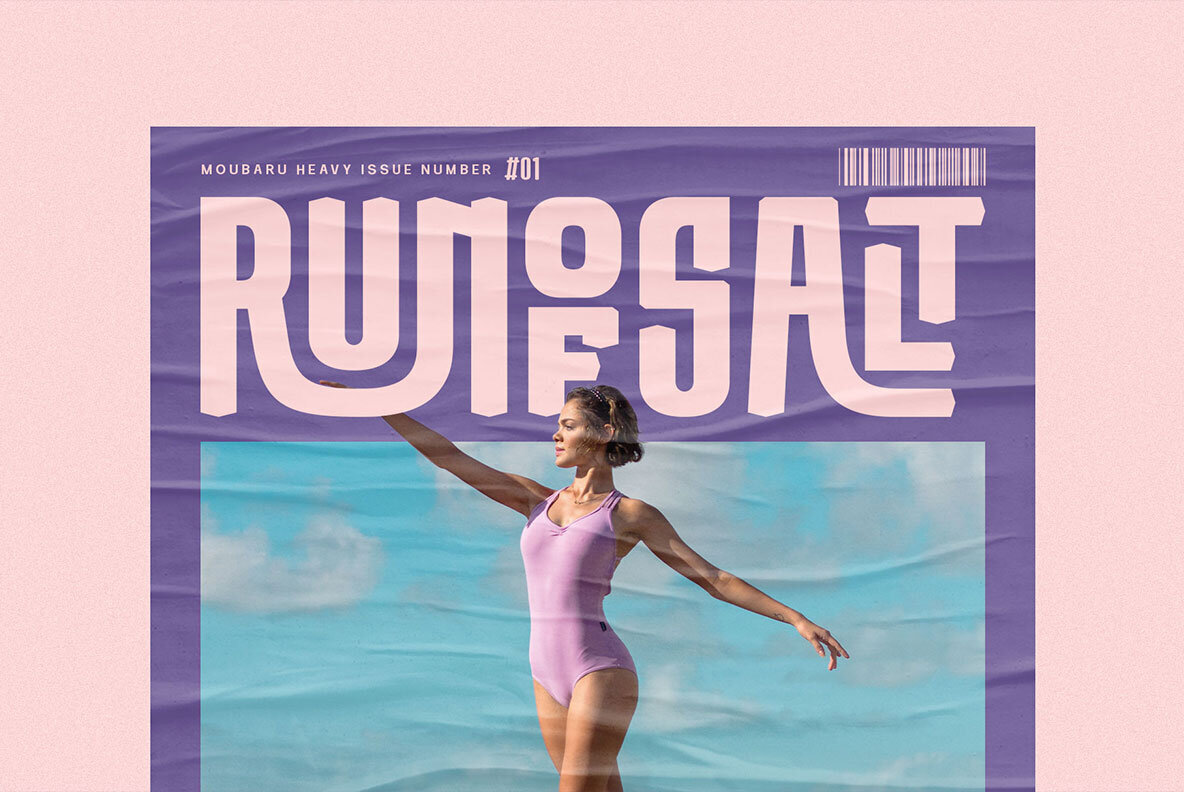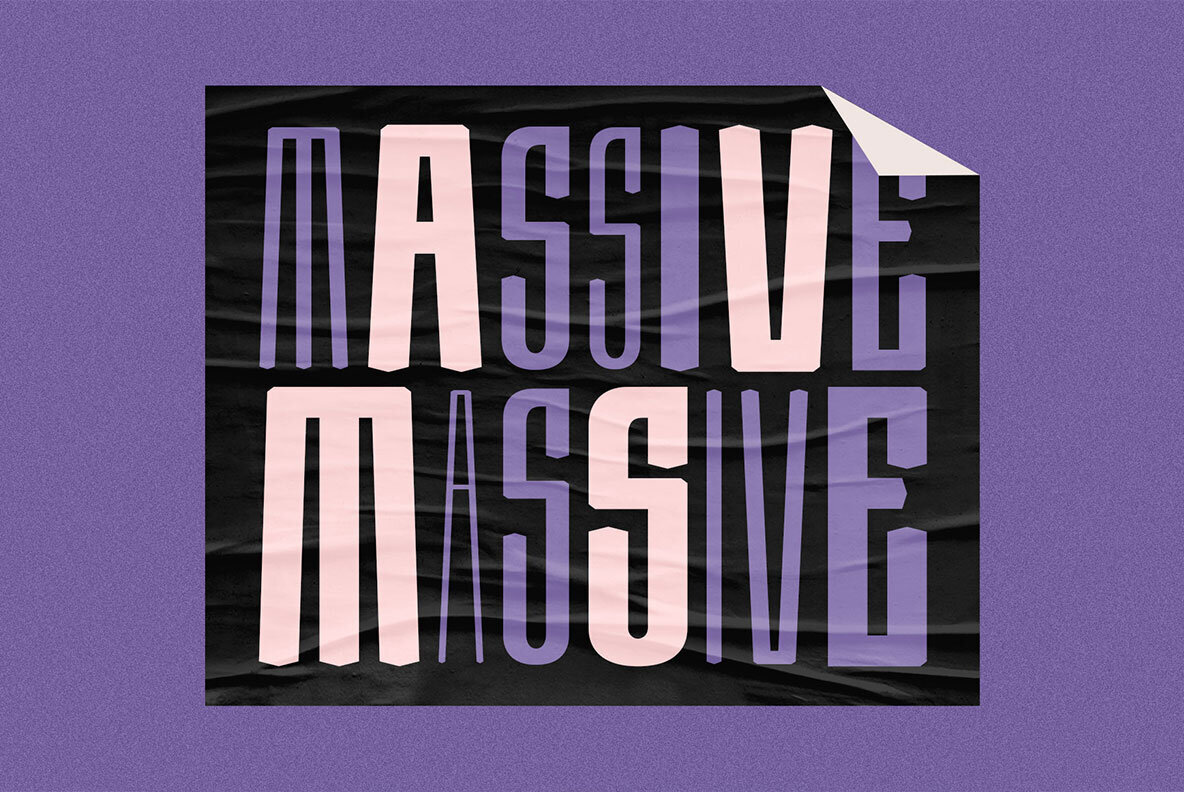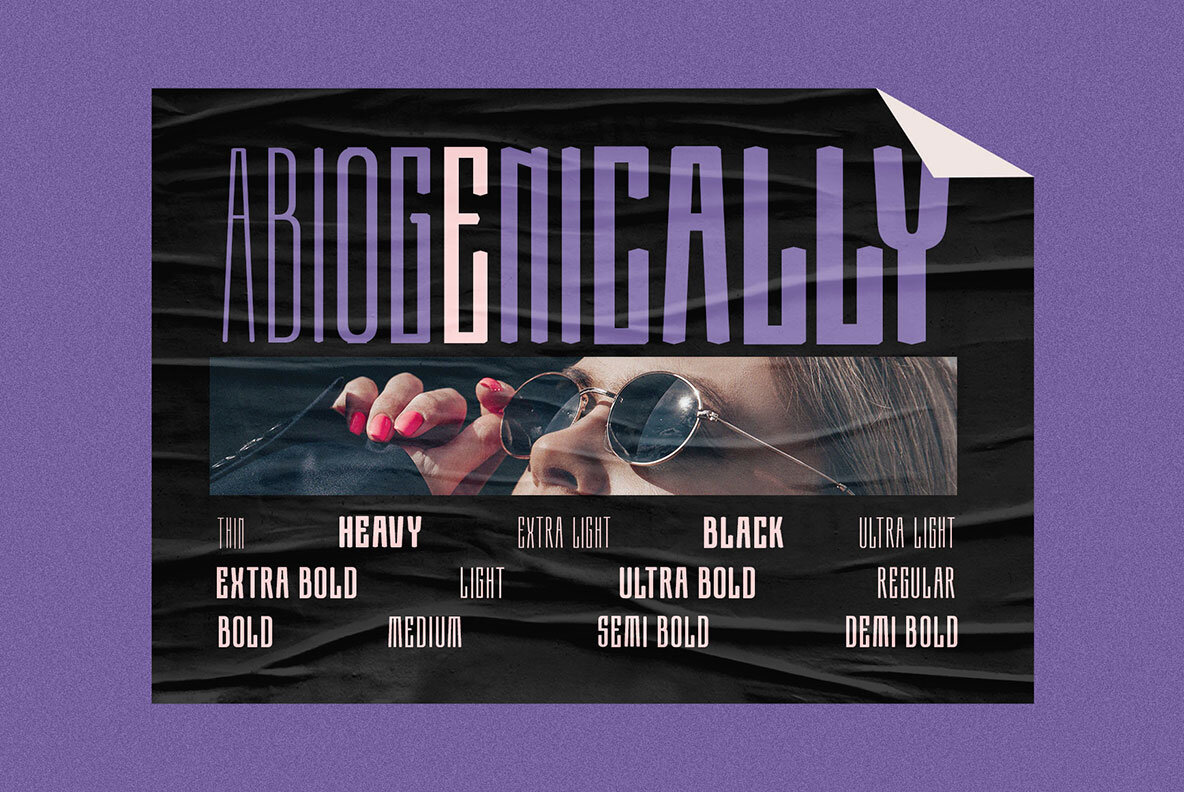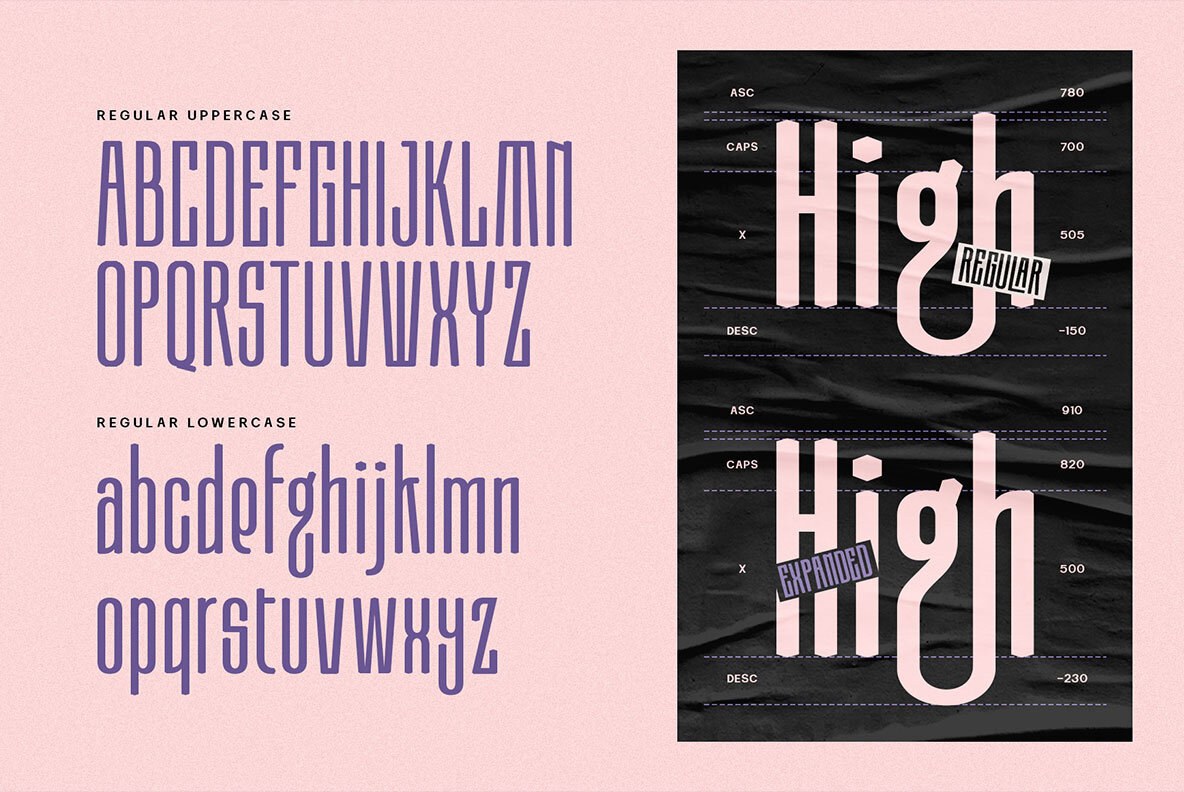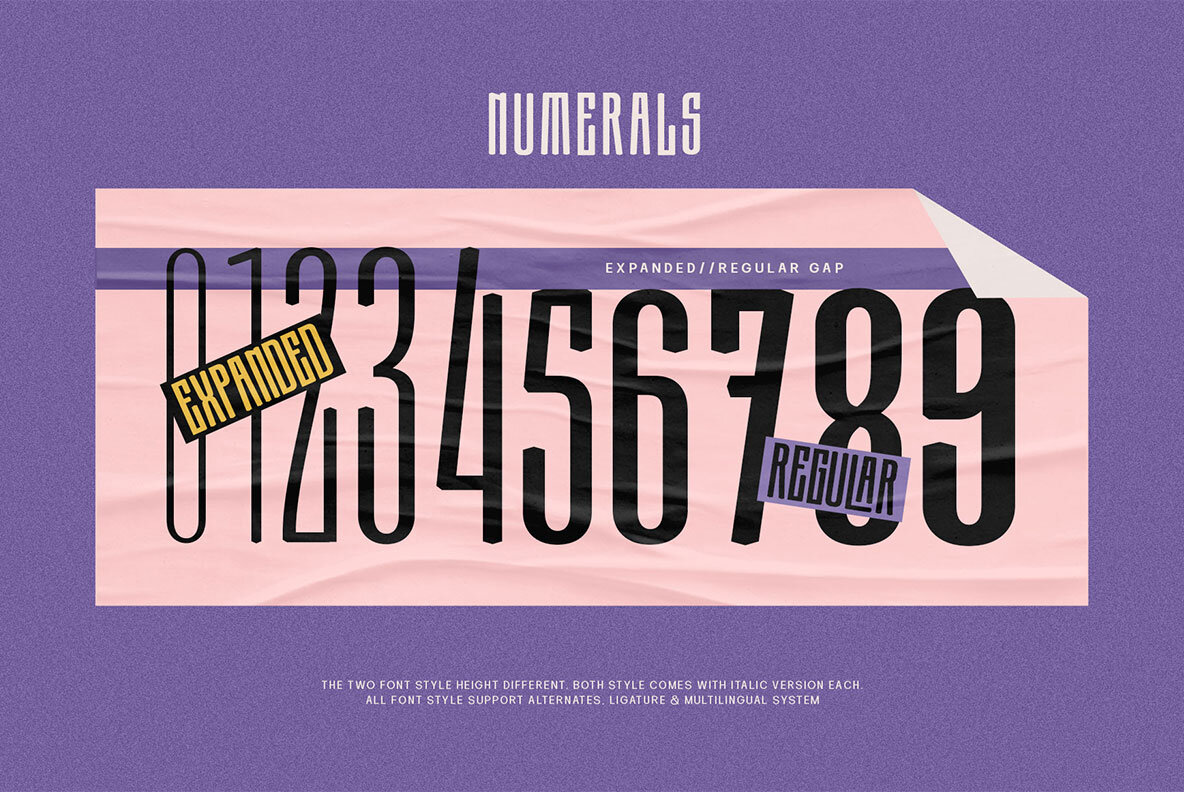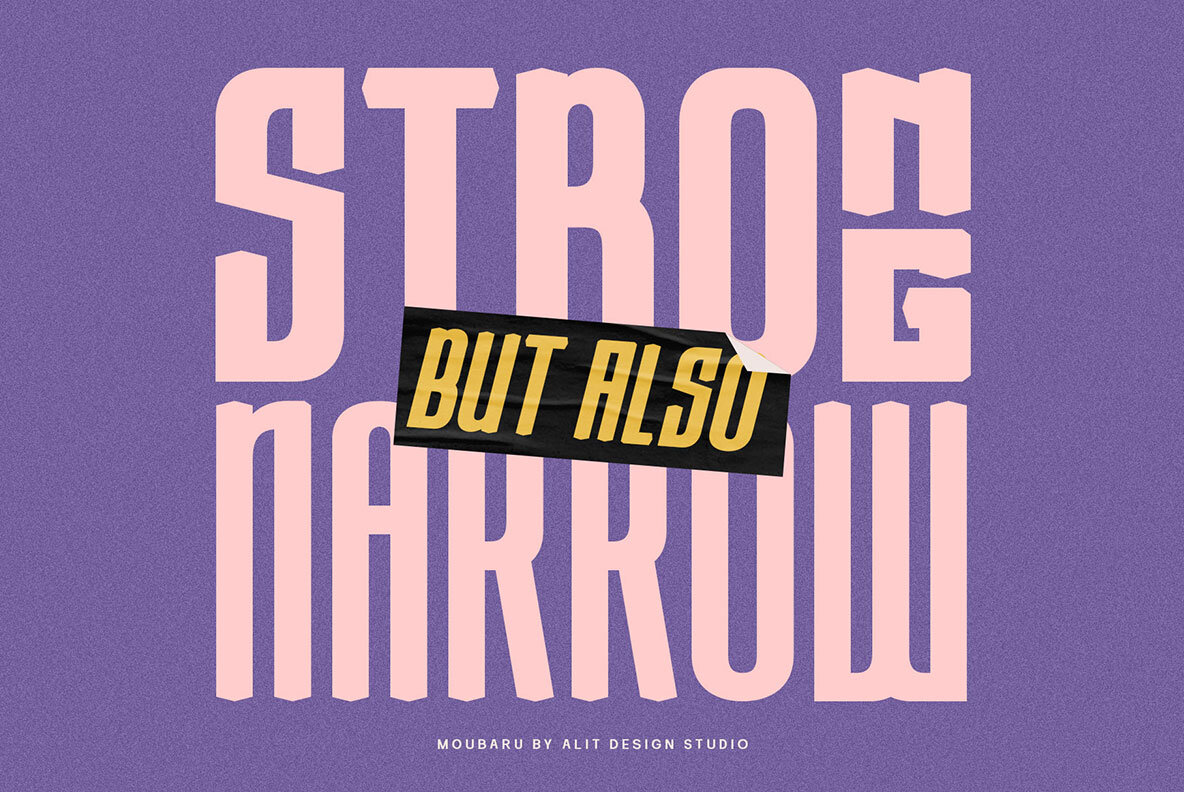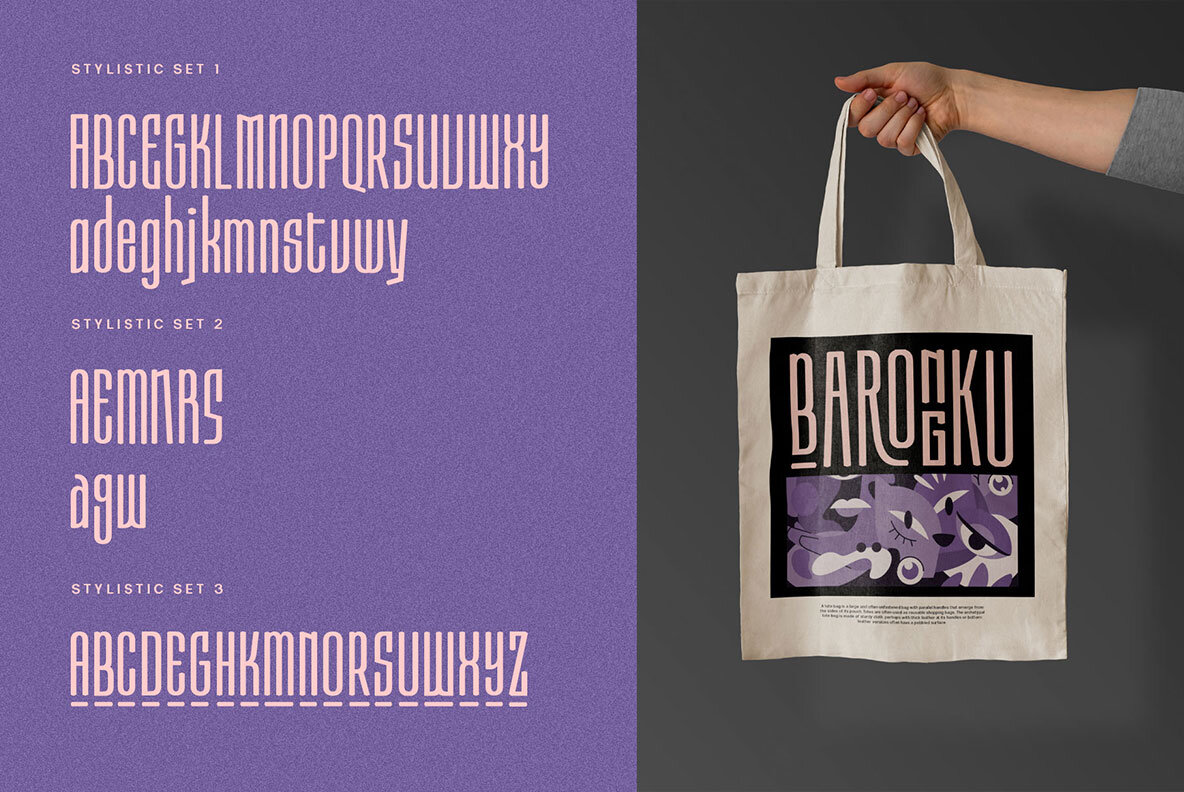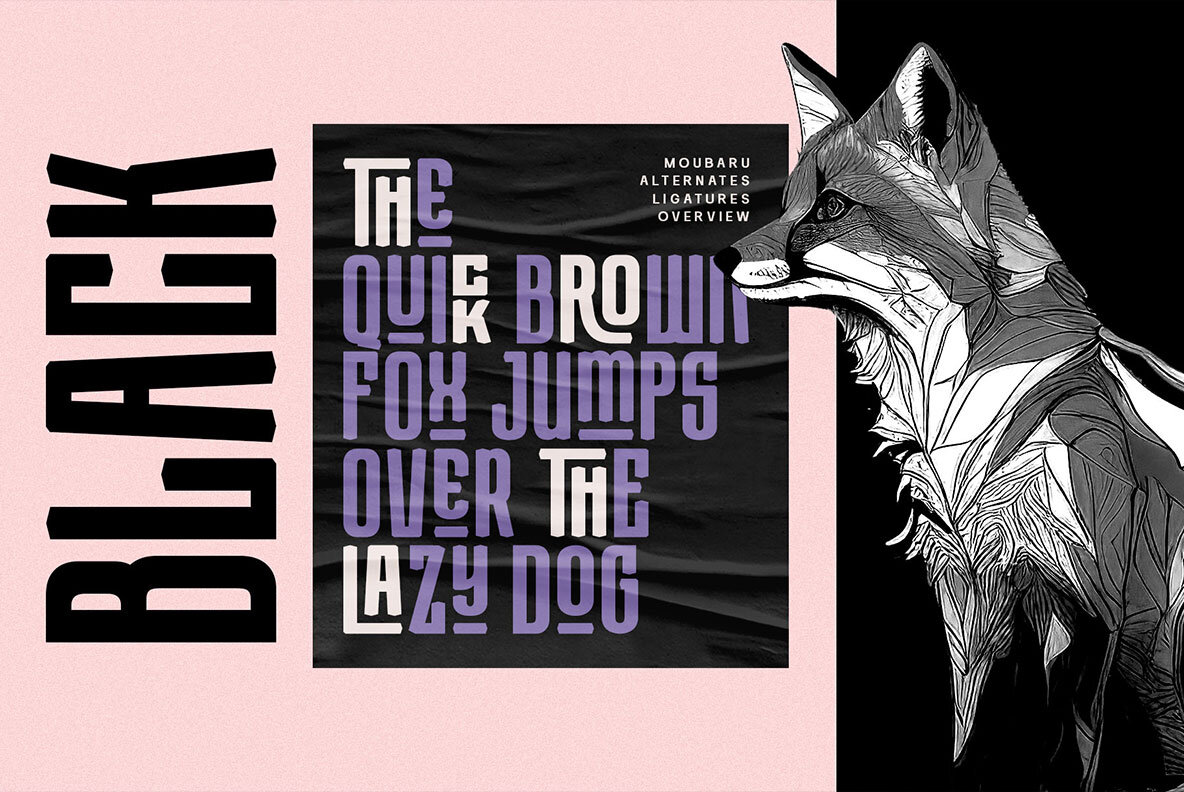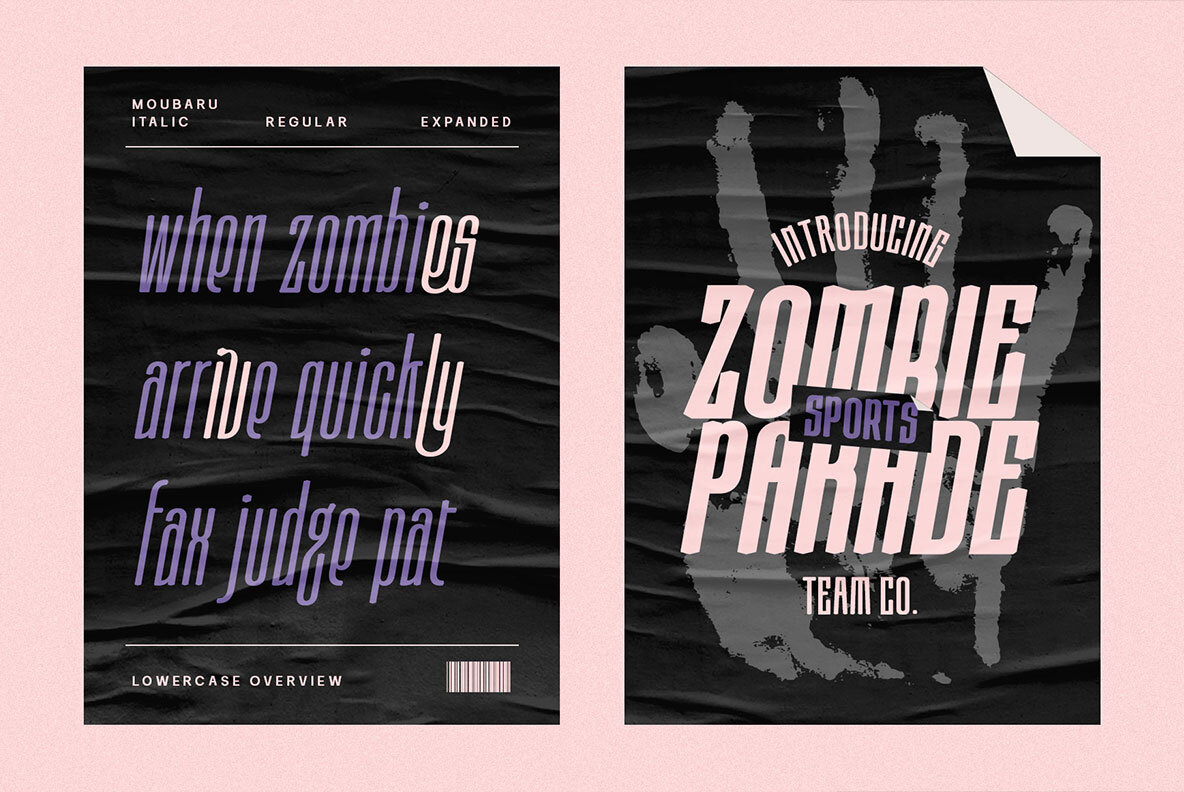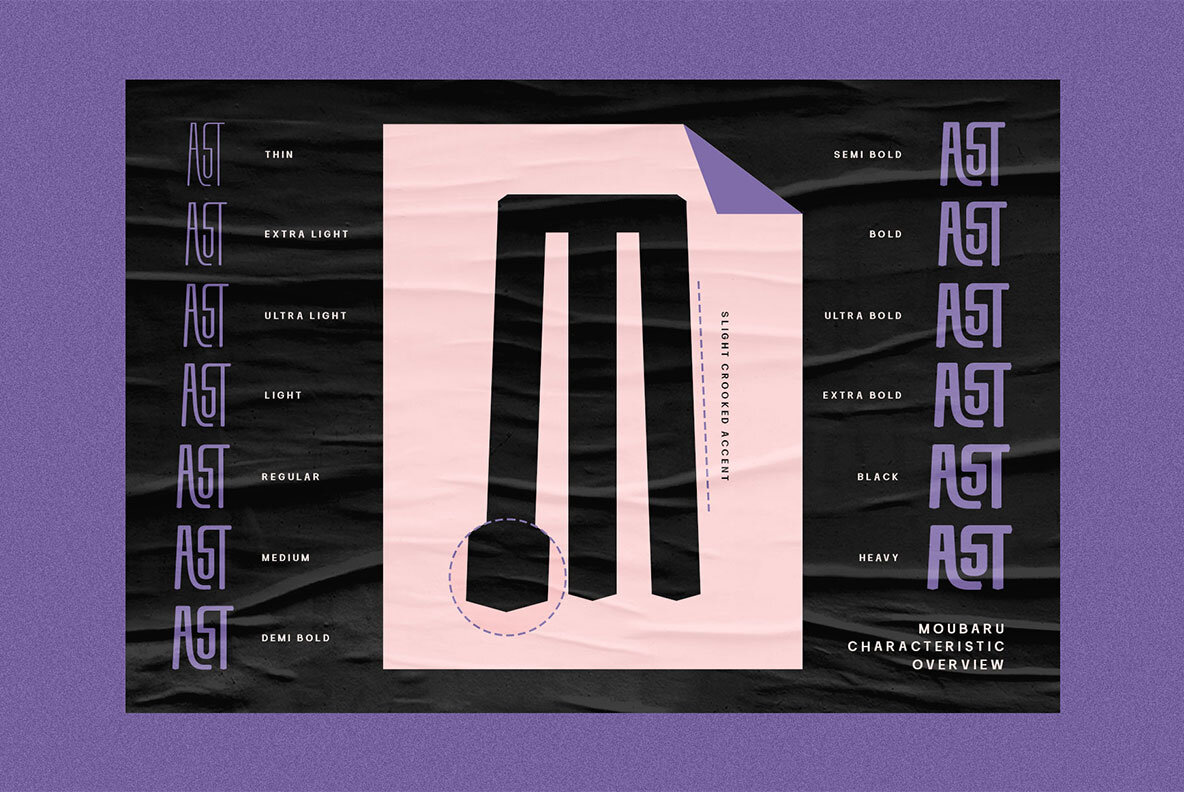
Moubaru Font
Moubaru, a modern sans serif font family, offers an array of weights from Thin to Heavy, ensuring versatility and adaptability. Its tall body allows for easy legibility, even in smaller sizes, while the extensive collection of 680 glyphs expands the scope of typographic possibilities. The Moubaru also features a condensed version, perfect for situations with limited space. Its support for Private Use Area (PUA) encoding grants access to special characters and symbols typically unavailable in standard character sets. With its sleek and contemporary aesthetic, Moubaru is well-suited for a range of design contexts, including branding, advertising, editorial, and web design. Language Support: Latin, Basic, Western European, Central European, South European, and Vietnamese. To make the most of Moubaru's swashes, utilize a program that supports OpenType features, such as Adobe Illustrator CS, Adobe Photoshop CC, Adobe InDesign, or Corel Draw. If your software lacks a Glyphs panel, additional swashes font files can be installed separately.